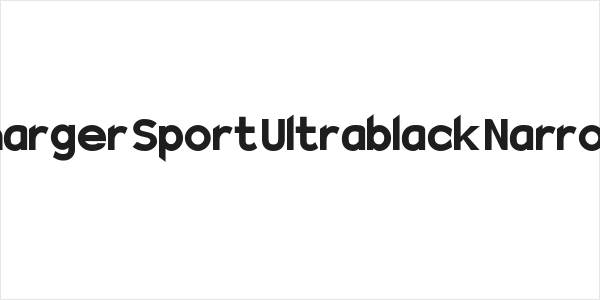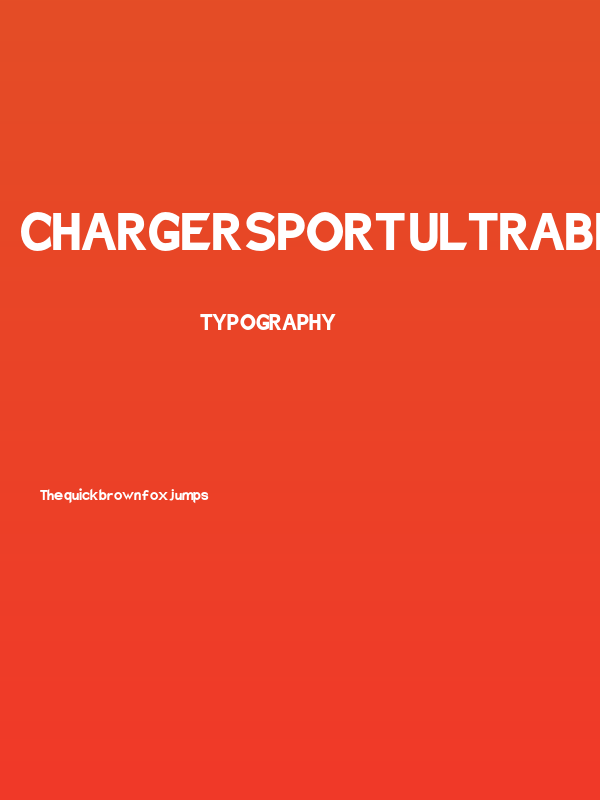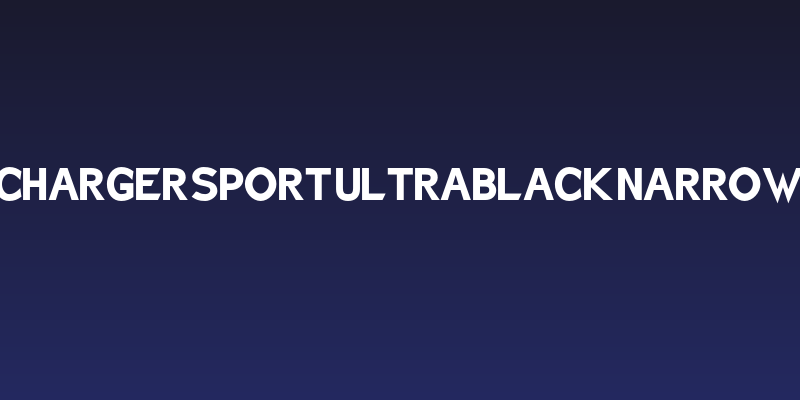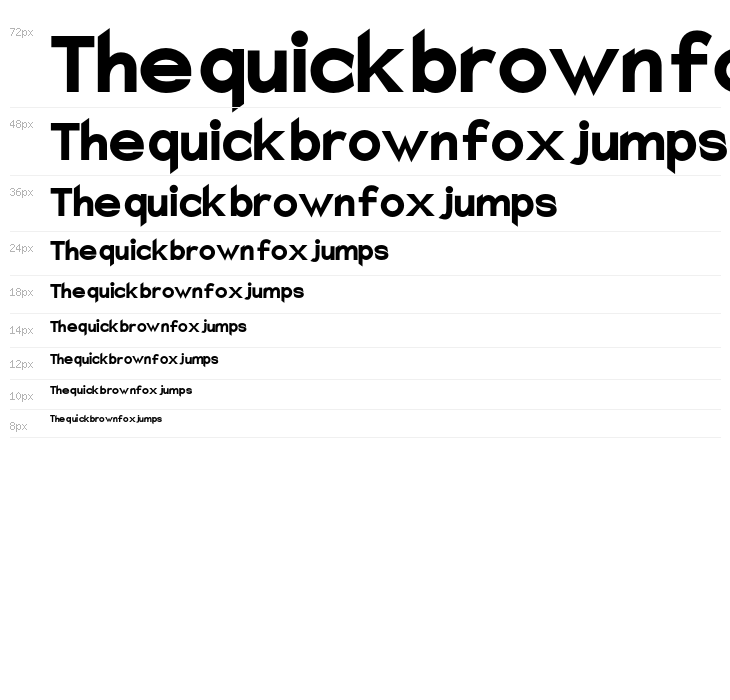
Charger Sport Ultrablack Narrow Font
Charger Sport Ultrablack Narrow Description
This font features a bold and impactful design with a strong presence. The characters are crafted with a modern aesthetic, showcasing thick strokes and a narrow width that gives it a compact appearance. The uppercase letters are uniform and balanced, while the lowercase letters maintain a consistent style that complements the overall look. The numerals are clear and easily readable, making them suitable for various applications. Special characters are included, adding versatility to the font's use. Its design is ideal for creating attention-grabbing headlines and logos.
| Proposed Projects | Ideal for sports branding, dynamic posters, modern advertising, and impactful headlines. |